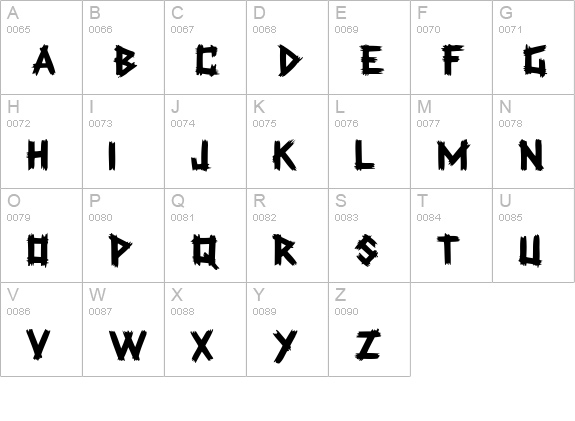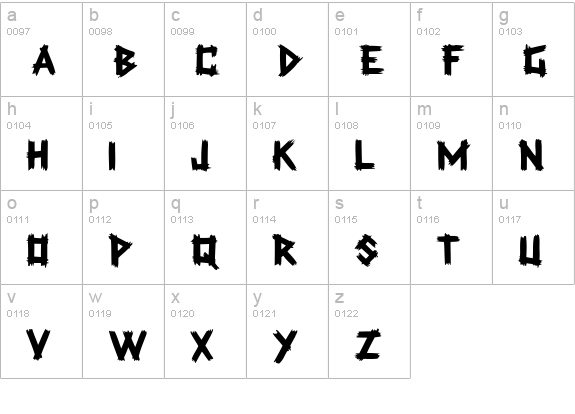
Trading Post MF Bold Font Details
Trading Post MF Bold is a strong, high-contrast variant in the Trading typeface family \xE2\x80\x94 well suited to headlines, attention-grabbing titles, and strong calls-to-action.
Trading Post MF Bold font is a striking and versatile typeface that exudes a sense of rugged charm and timeless elegance. With its bold and sturdy letterforms, this font is perfect for adding a touch of strength and character to any design project. What sets Trading Post MF Bold font apart is that it is not only visually appealing but also highly functional. Whether you're working on a branding project, poster design, or any other creative endeavor, this font will make your text stand out and leave a lasting impression. Best of all, Trading Post MF Bold font is available for free download at FontsMarket.com. This means you can easily access this high-quality font and use it in your projects without any cost. Don't miss out on the opportunity to enhance your designs with the bold and distinctive look of Trading Post MF Bold font. Download it today and take your creations to the next level!